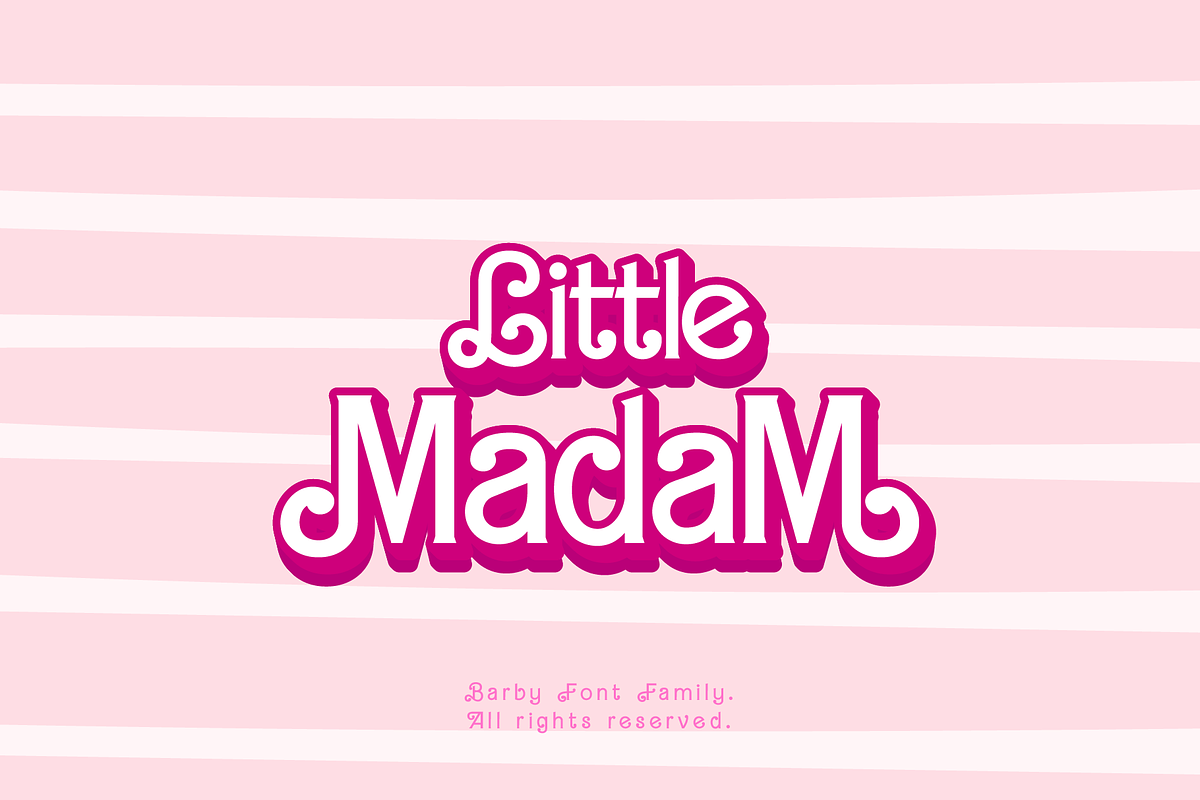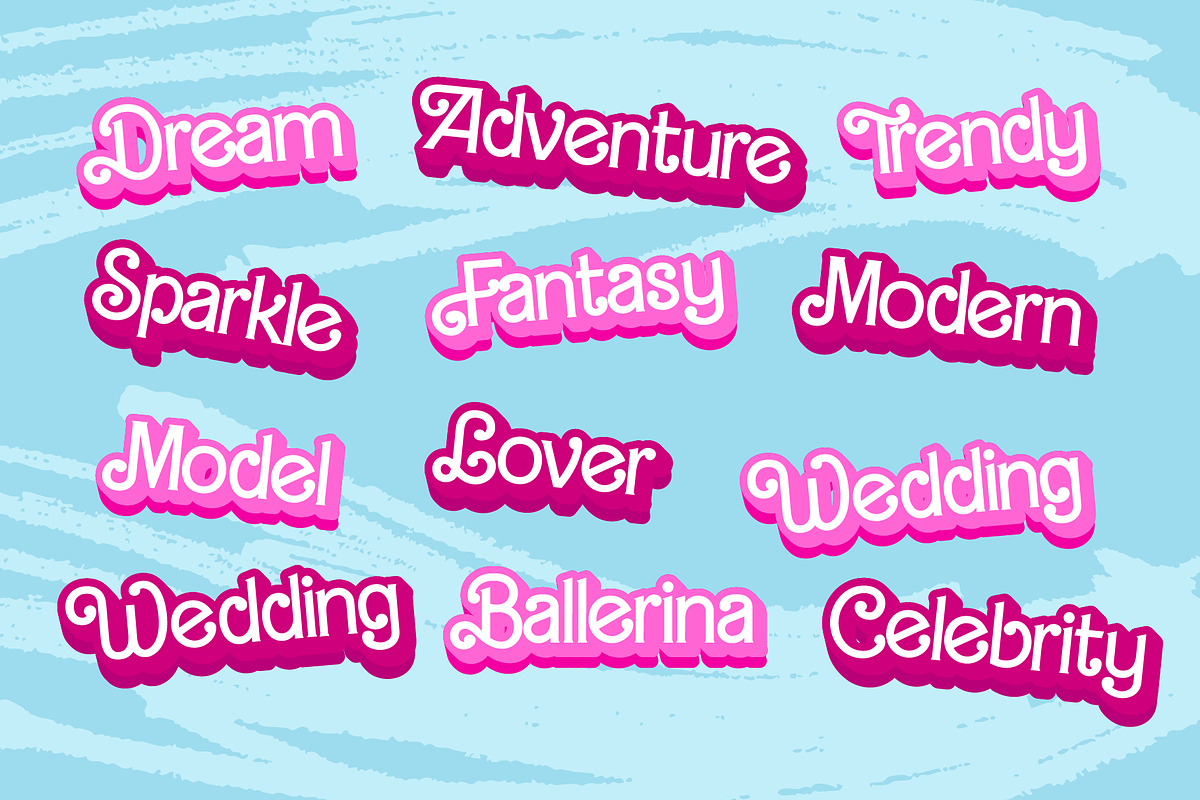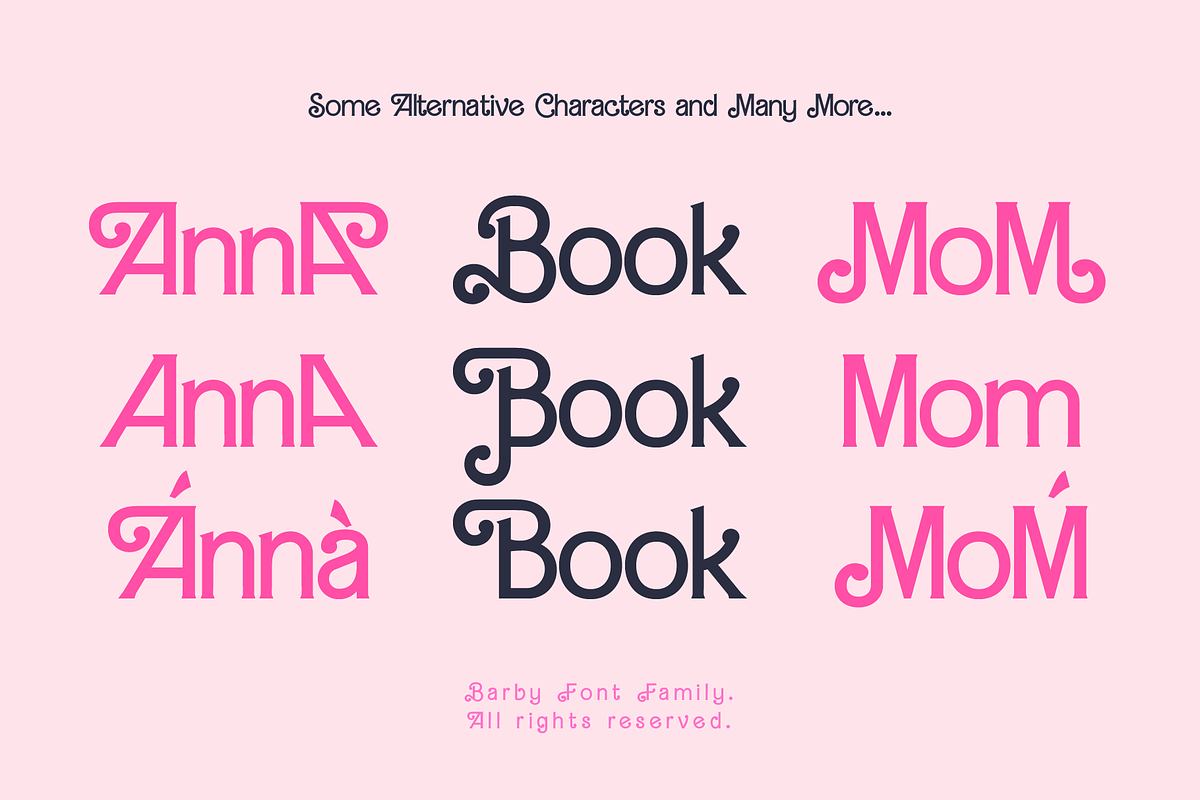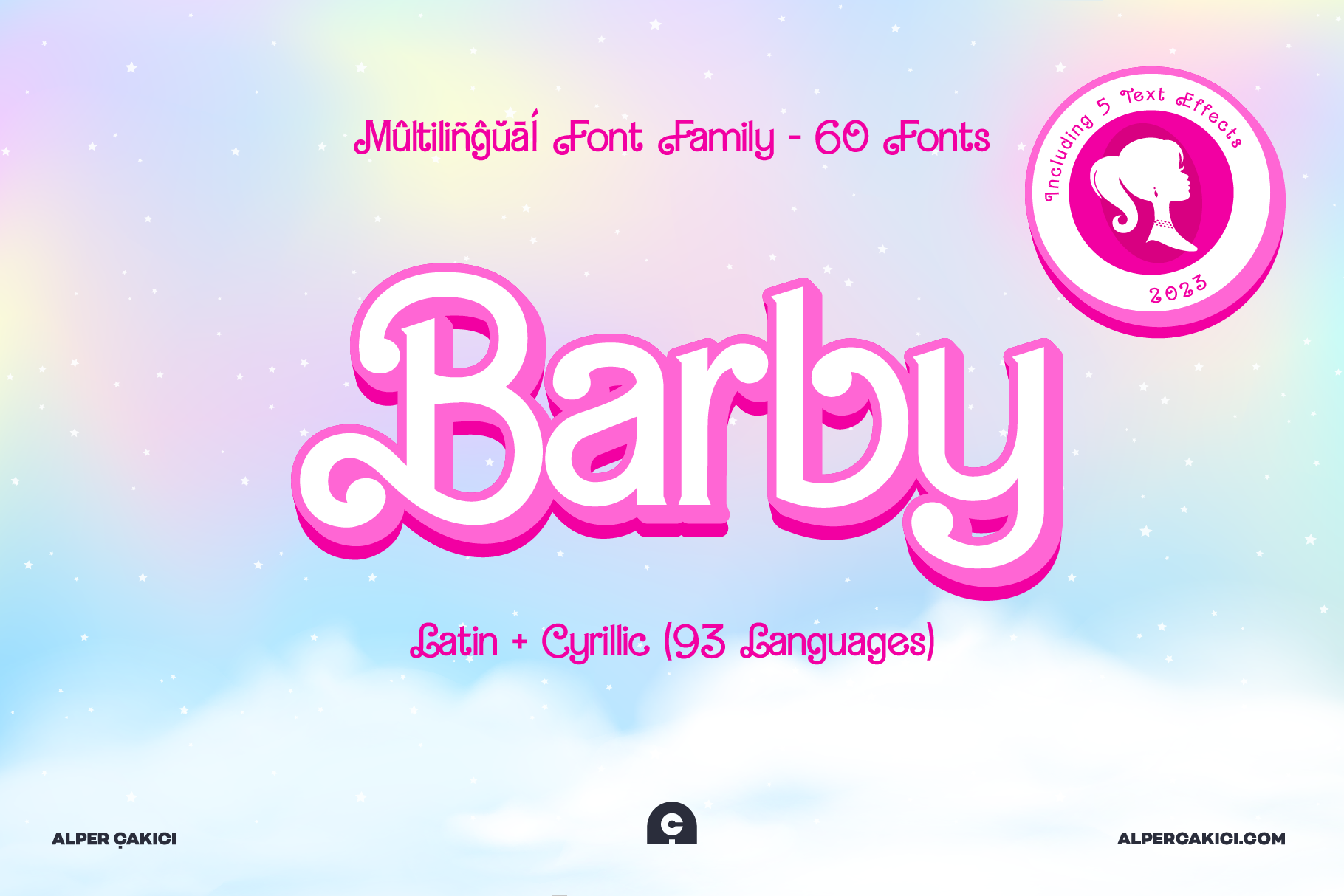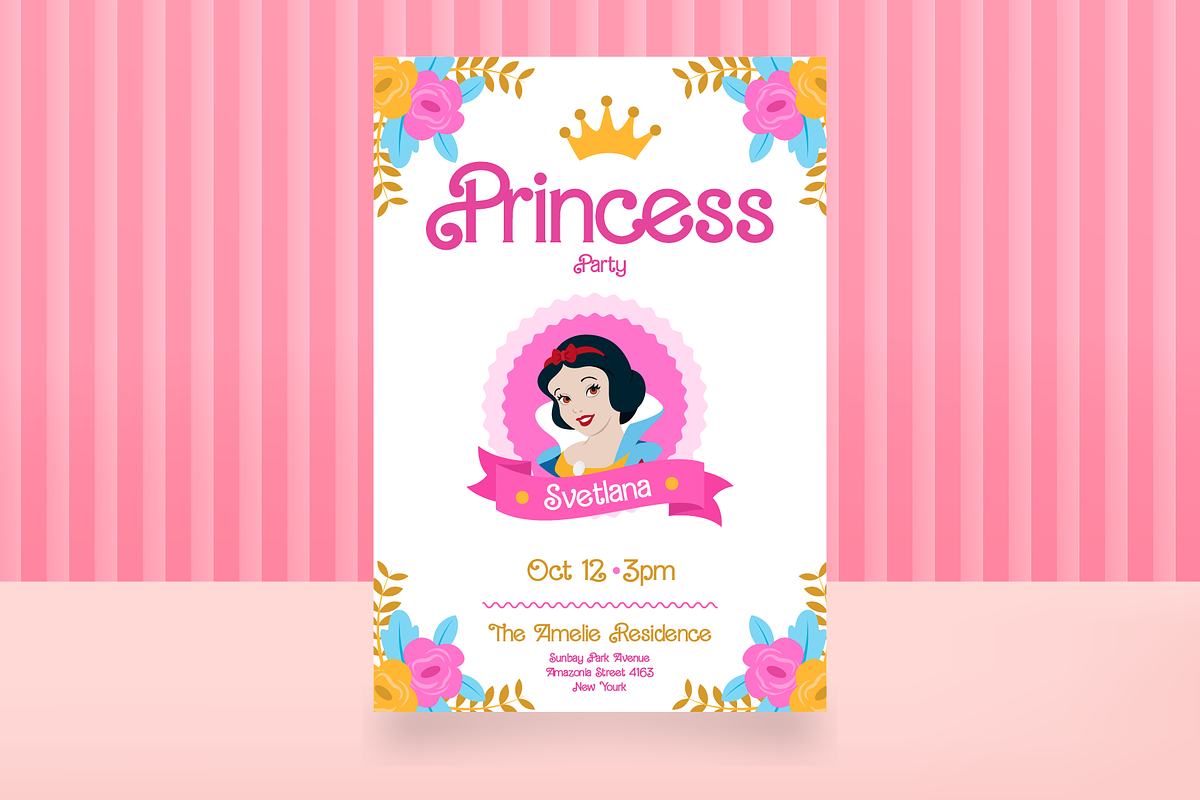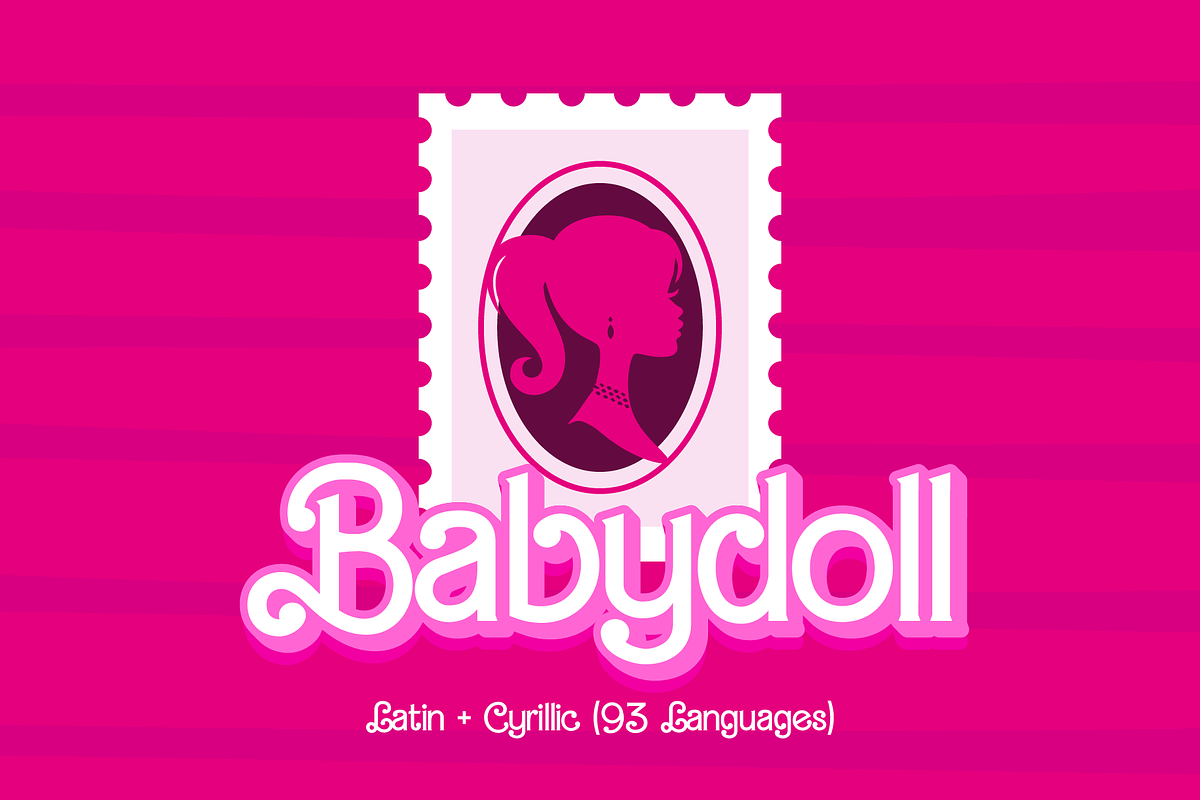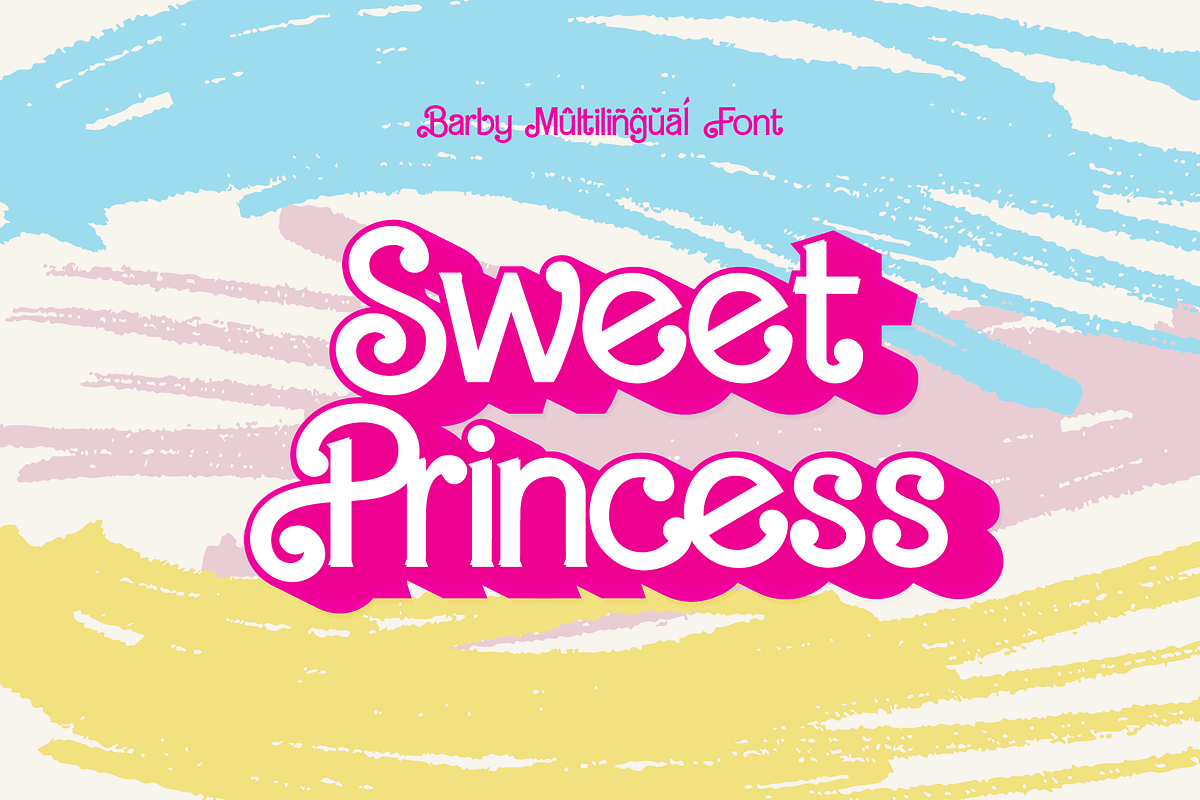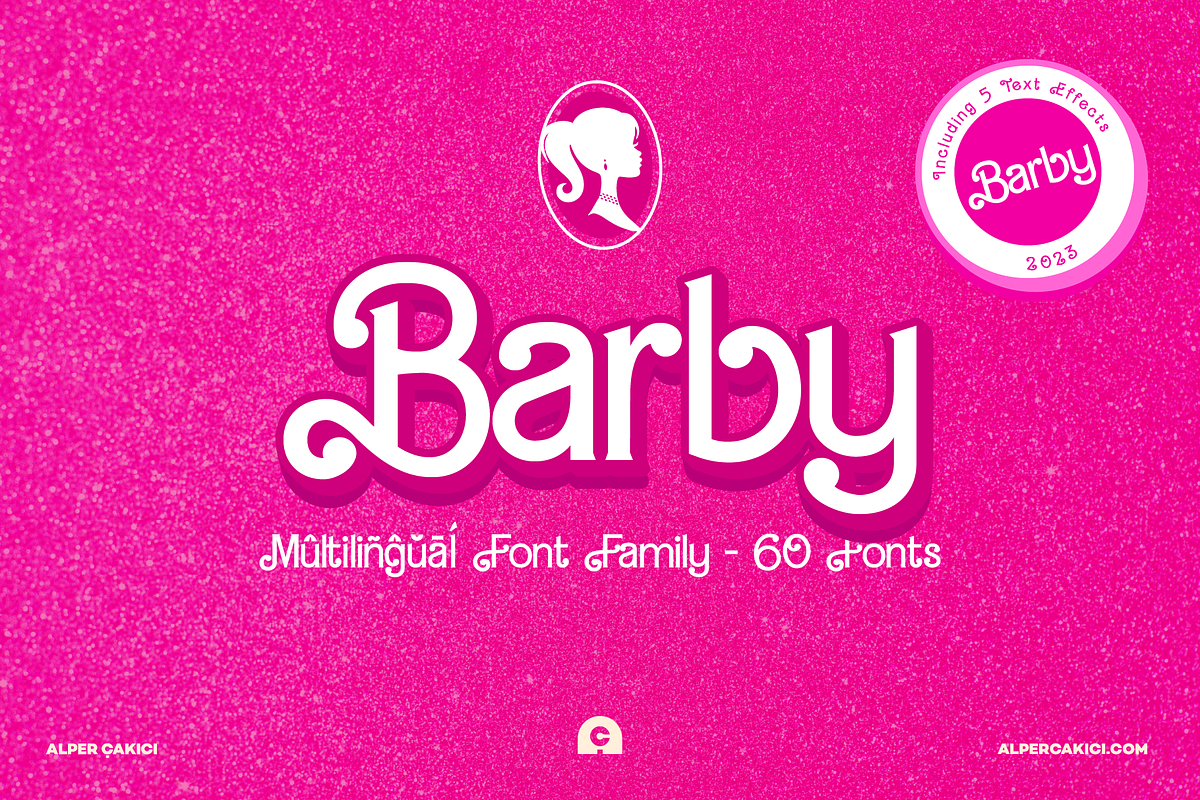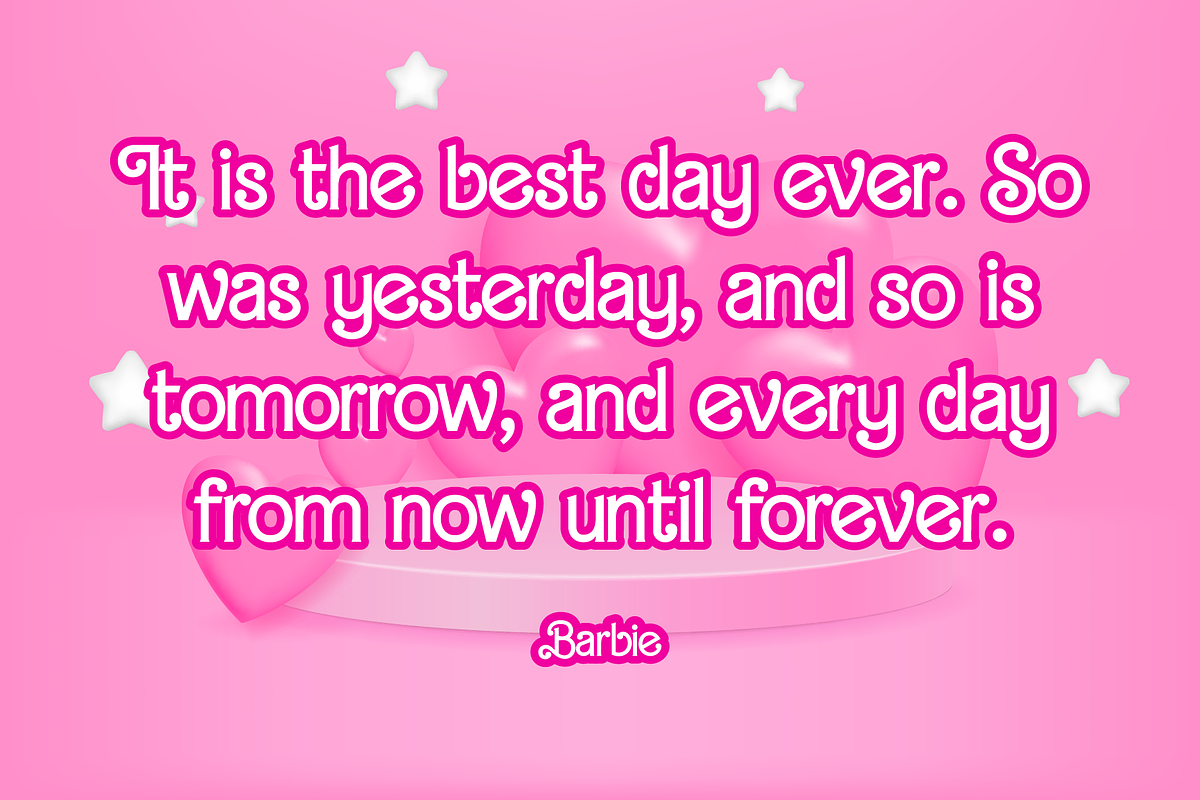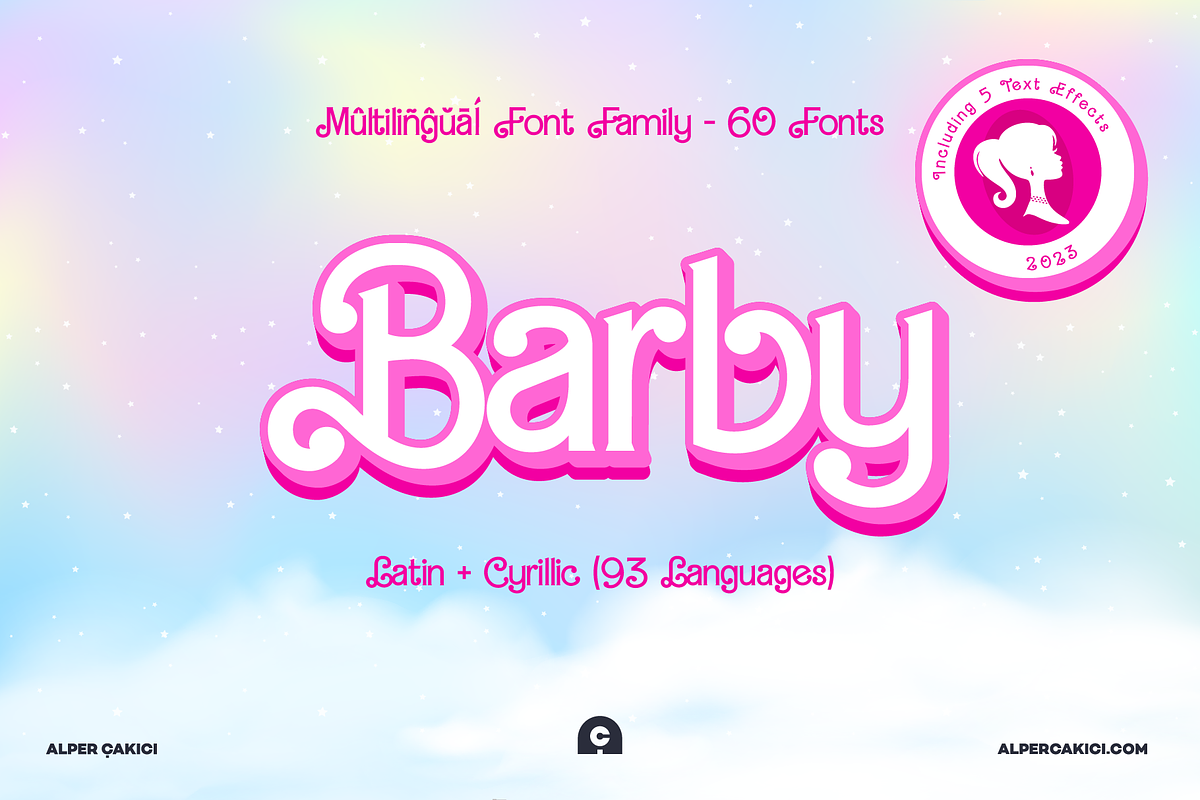
Barby Font Family - 60 Fonts
Barby is a playdoll inspired whimsical font straight out of a fairytale! This font is not just about letters; it's a magical journey with alternative characters that add a touch of enchantment to your designs. With support of Extended Latin and Cyrillic languages it's a versatile choice for creators worldwide. Embrace the girly charm and add a sprinkle of magic to your projects with this unique and delightful font. Barby including TTF + OTF +WOFF + WOFF2 formats.